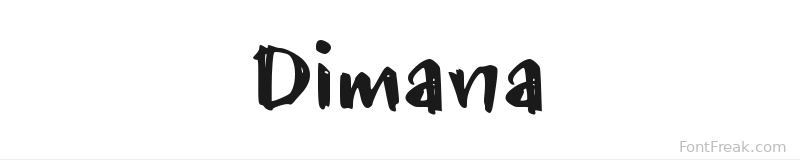
Dimana
Dimana, designed by Wahyu Eka Prasetya in 2021, is a captivating display font that embodies a unique blend of modern flair and artistic expression. This font falls under the script category, characterized by its playful and fluid strokes that evoke a sense of creativity and spontaneity. The visual characteristics of Dimana include a medium stroke weight with slight variations that create a dynamic contrast, enhancing its overall appeal. The spacing is thoughtfully designed to ensure legibility while maintaining an engaging visual rhythm. Decorative elements such as whimsical swashes and rounded edges add to its charm, making it a versatile choice for various design projects.
Dimana is particularly well-suited for use cases that require a touch of personality and warmth. It shines in applications such as wedding invitations, where its elegant script can convey romance and intimacy. Additionally, it can elevate the aesthetic of restaurant menus, infusing them with a sense of culinary artistry. Movie posters can benefit from Dimana's boldness, making titles stand out and capture attention. Moreover, it serves as a delightful choice for branding small businesses, helping to establish a unique identity that resonates with customers.
Targeting graphic designers, small business owners, and content creators, Dimana offers a fresh alternative to conventional typefaces. Its versatility allows for creative applications across various media, catering to those looking for something distinctive.
What sets Dimana apart is its ability to blend artistic flair with practical usability. The font's free availability as a "Dimana font free download" further enhances its appeal, allowing users to explore its potential without financial constraints. Whether for personal or professional projects, Dimana is a wonderful addition to any designer's toolkit.